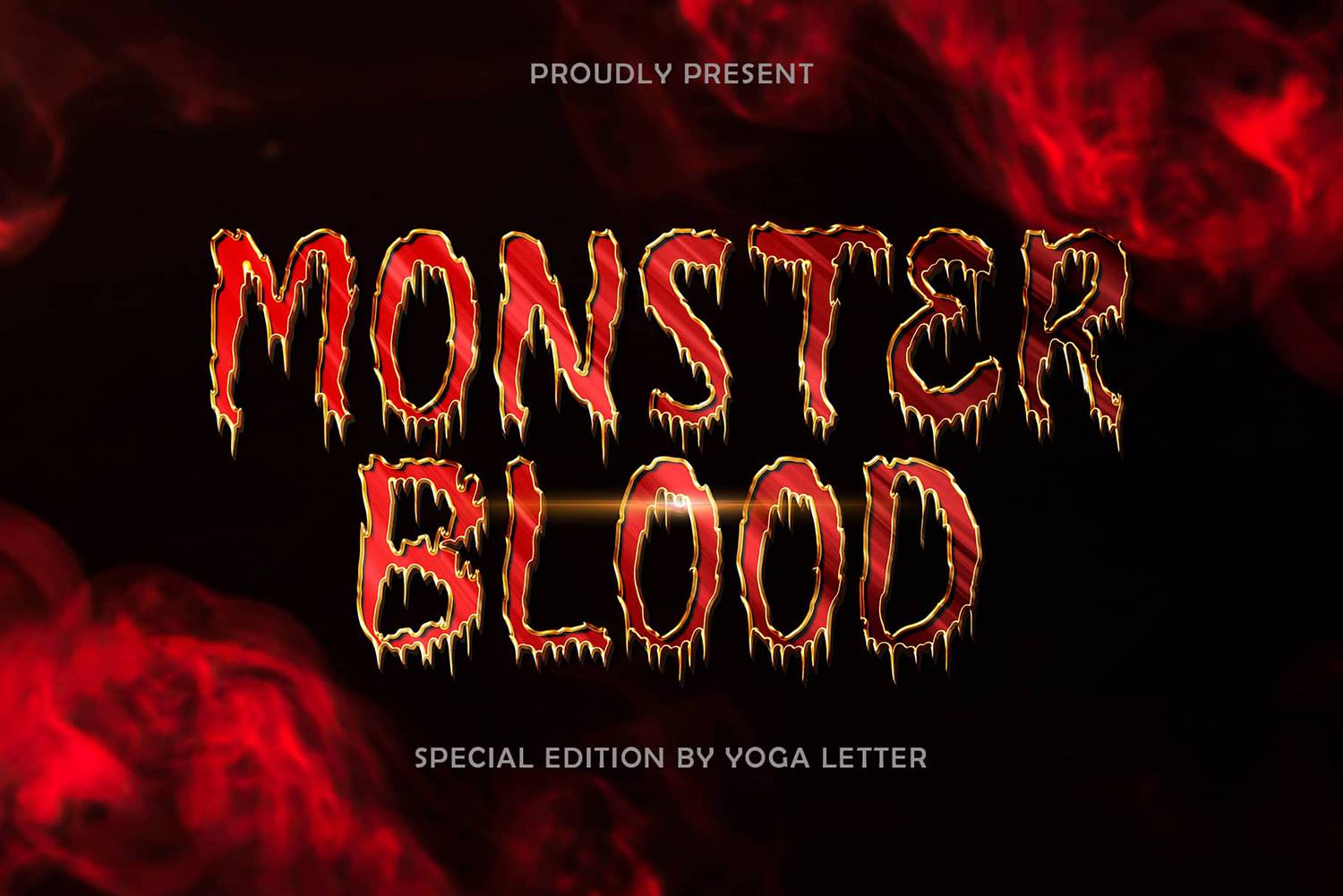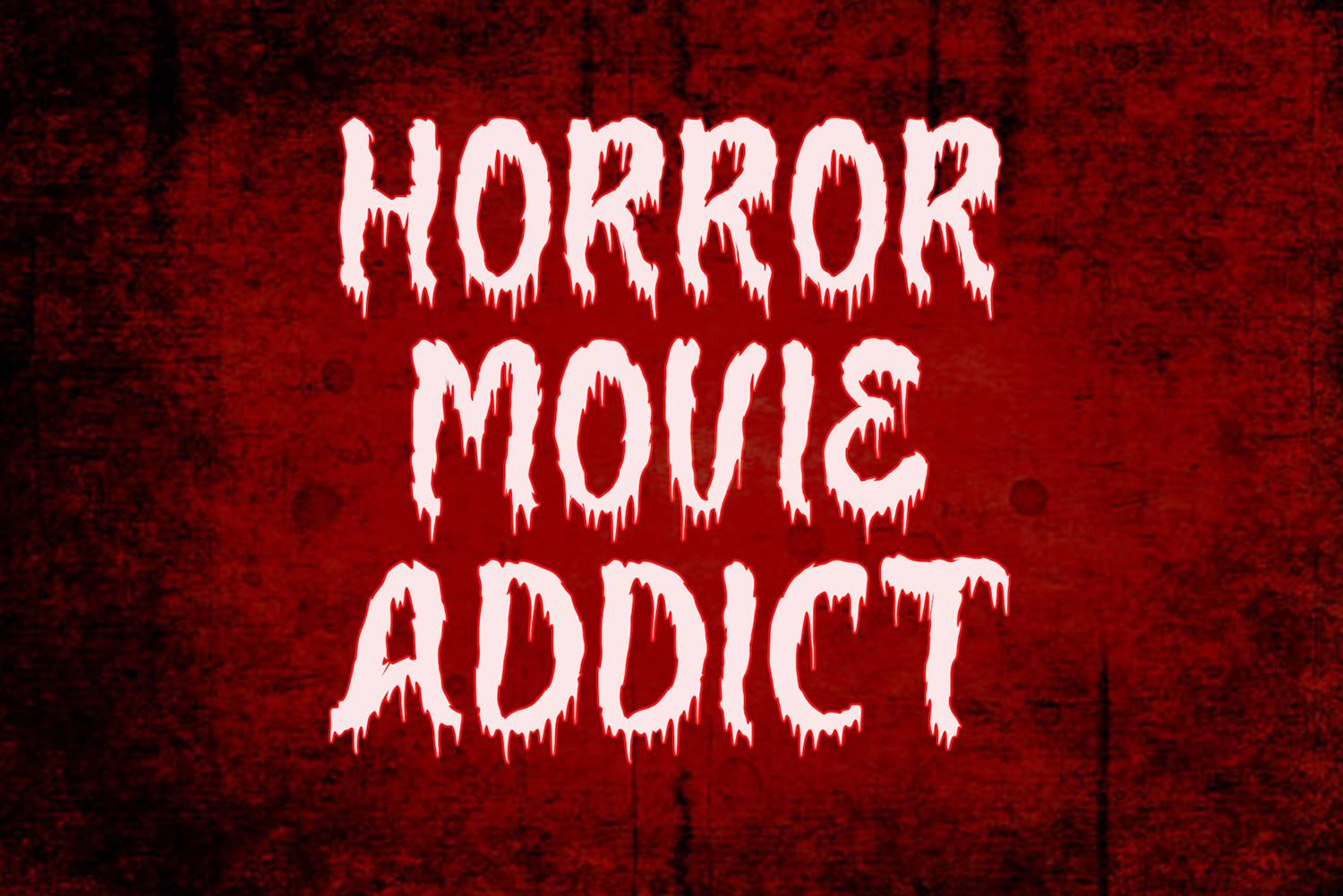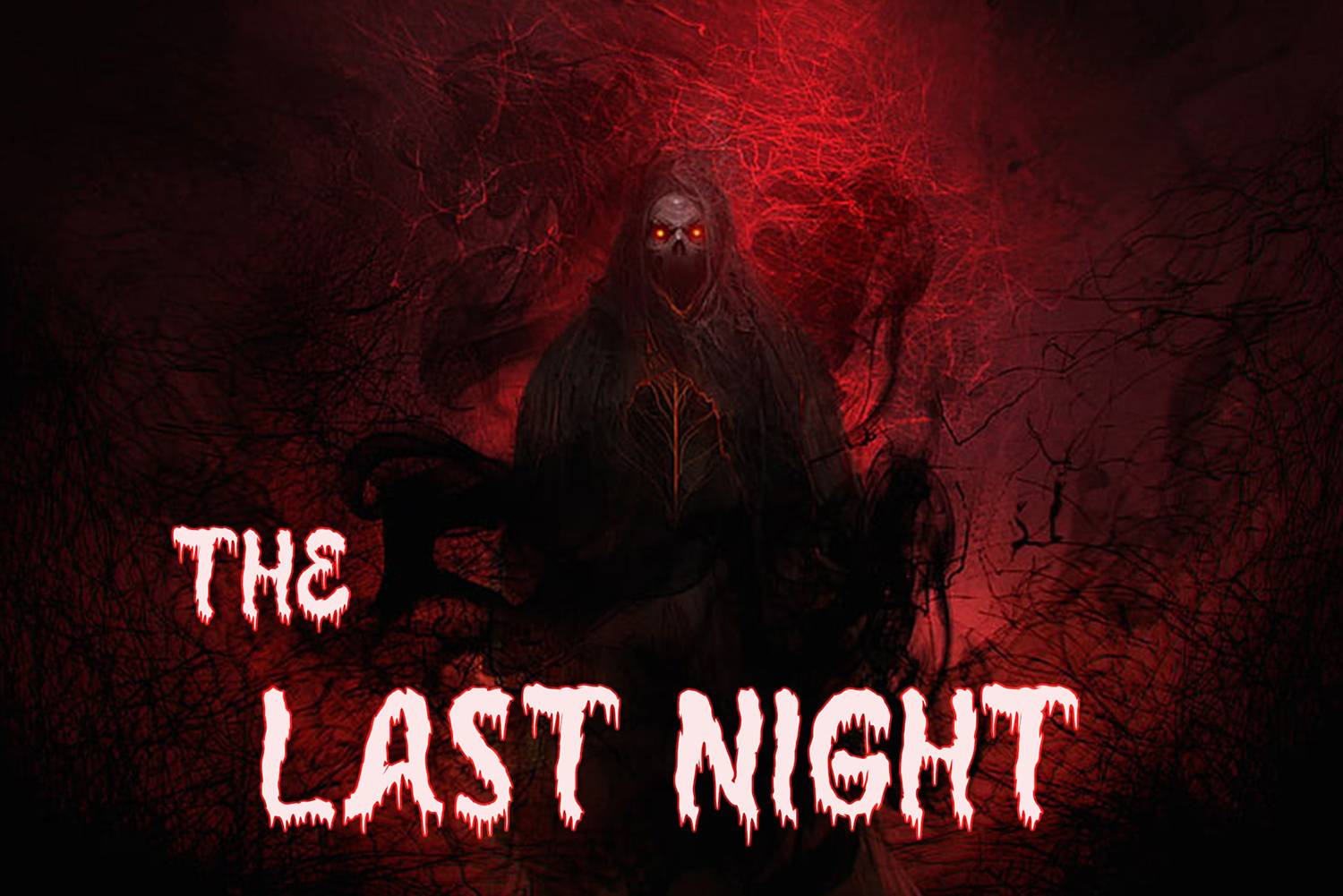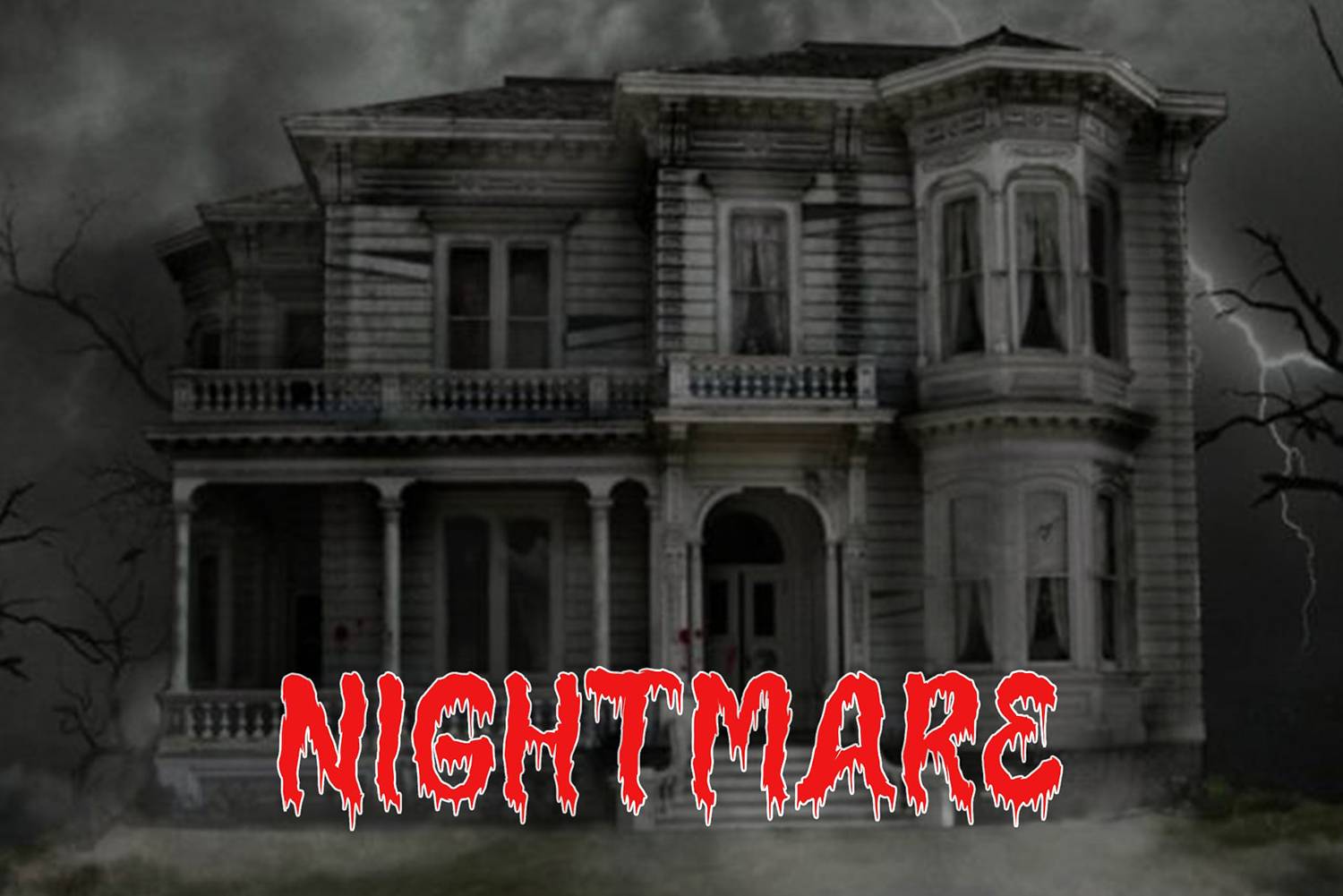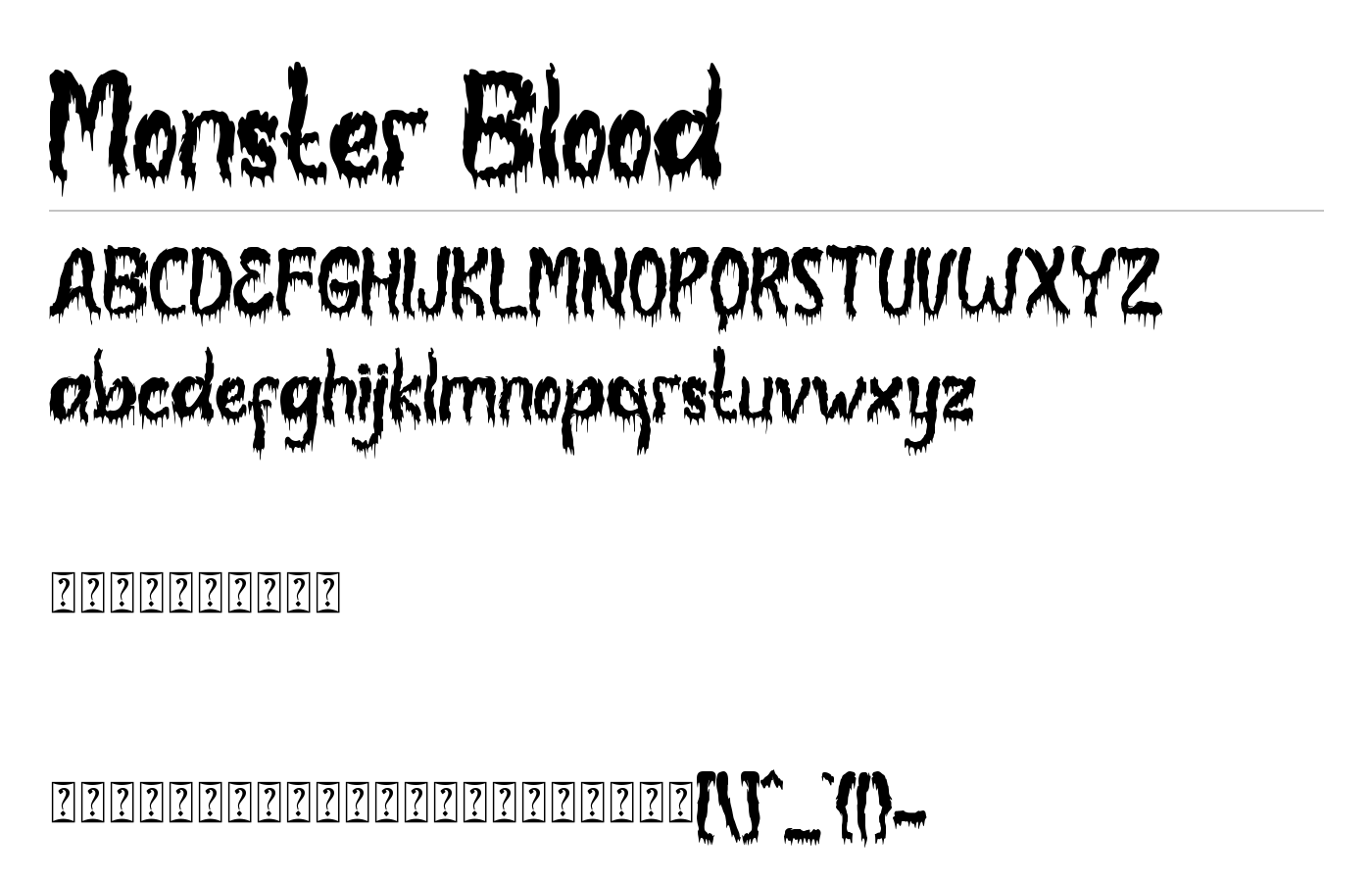
Monster Blood is a bold, dripping display font that blends a playful yet eerie vibe perfect for spooky or Halloween-themed designs. Its uneven, jagged edges and irregular strokes create a sense of movement and creepiness, making it ideal for eye-catching headlines, posters, and party invitations where a fun horror atmosphere is desired. This font works best in decorative contexts where impact and thematic character are key.
Monster Blood Font
About Monster Blood Font